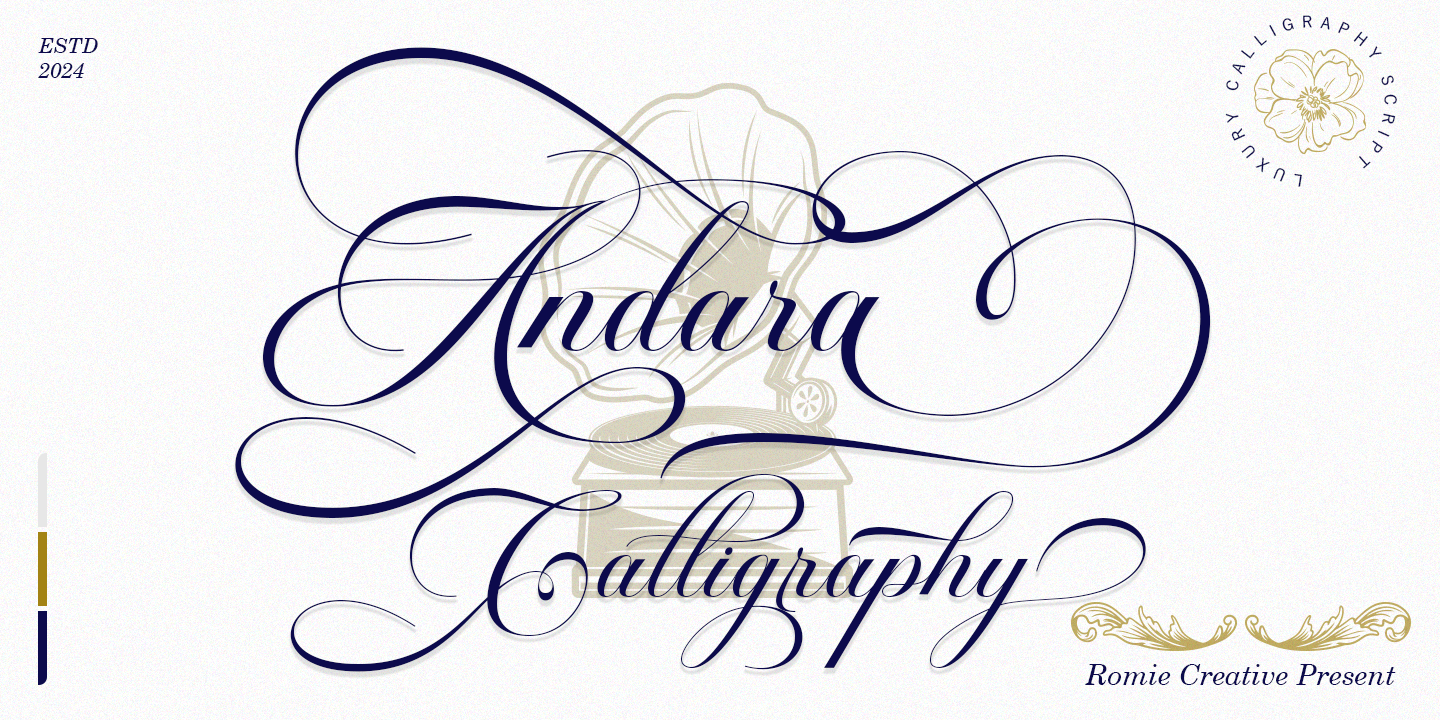
Andara Calligraphy Script Font Free Download – Exquisite Handcrafted Elegance
Elevate your designs with Andara Calligraphy Script Font Free Download, a breathtakingly beautiful script that blends traditional calligraphy mastery with modern digital precision. Perfect for luxury branding, wedding stationery, and projects demanding sophisticated handwritten elegance.
Why Andara Captivates
Masterful Stroke Variation – Authentic pressure-sensitive brush effects
800+ Glyphs – Extensive alternates for natural variation
Seamless Connections – Perfect letter-to-letter flow
Multilingual Support – Covers 40+ European languages
Contextual Alternates – Automatic character adjustments
Standard & Discretionary Ligatures – Flawless letter combinations
Stylistic Sets – Multiple design variations
Swash Characters – Decorative beginning/ending flourishes
Experience its graceful flow in your:
High-end wedding invitations
Luxury cosmetic packaging
Feminine brand identities
Personal stationery projects
Where Andara Excels
1. Wedding Industry
Romantic invitation suites
Embossed place cards
Calligraphed wedding signage
2. Beauty Branding
Perfume bottle typography
Skincare product packaging
Spa business identities
3. Fashion Design
Boutique clothing labels
Jewelry brand logos
Luxury accessory branding
4. Editorial Elegance
Magazine feature quotes
Book cover typography
High-end menu designs
Design Tip: Combine with gold foil stamping for breathtaking wedding stationery!
Perfect for: Designers who demand script fonts with authentic calligraphic beauty.